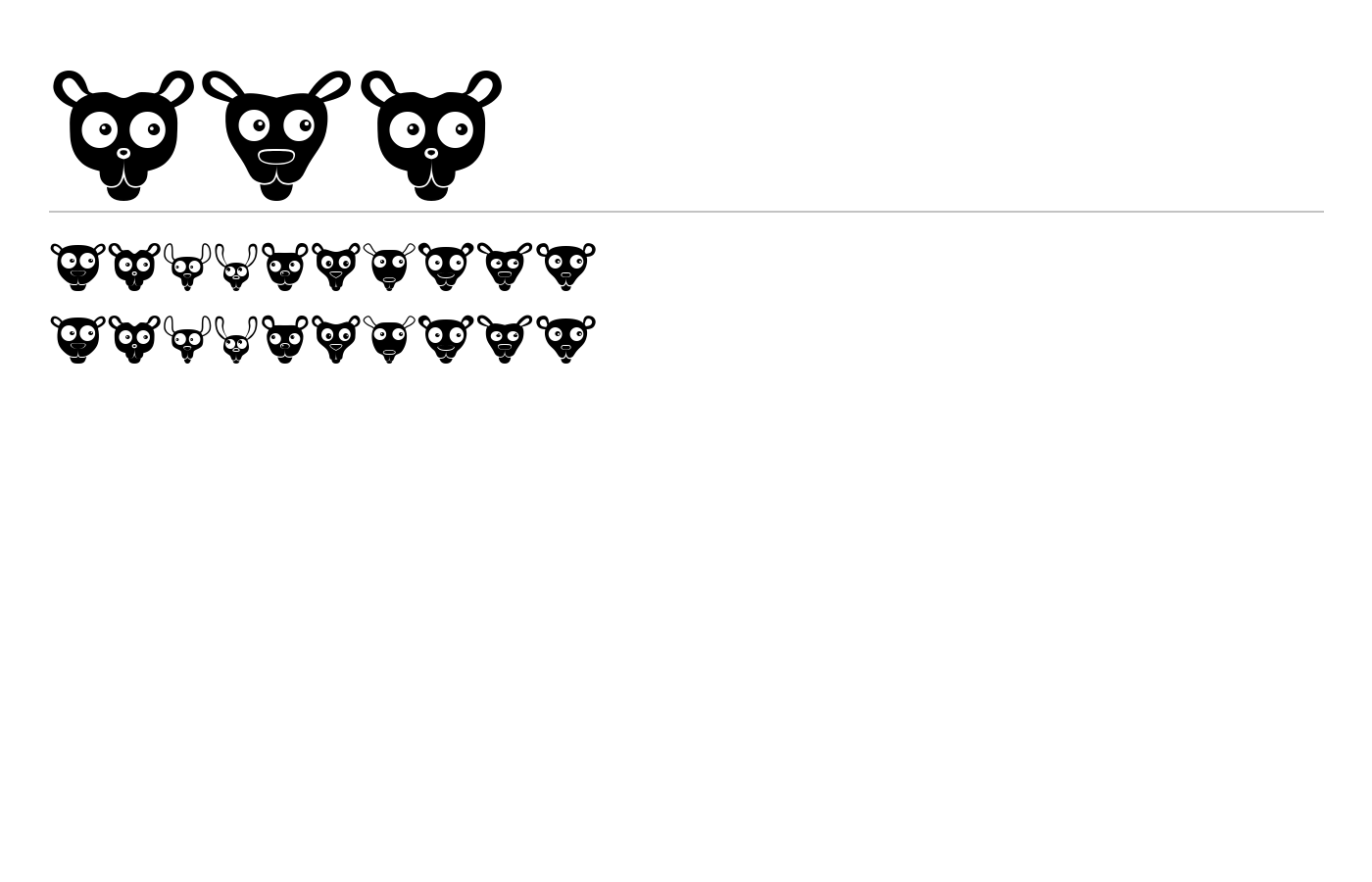
Biby Font is a playful and unique symbol typeface featuring a series of quirky bear-like faces as its characters. It is not a traditional alphabet font but rather a decorative set of icons with a bold, cartoonish style, perfect for adding a fun and friendly touch to children's products, branding, or creative projects that need a whimsical and eye-catching visual element.
Biby Font
About Biby Font
| Font family | Biby Font |